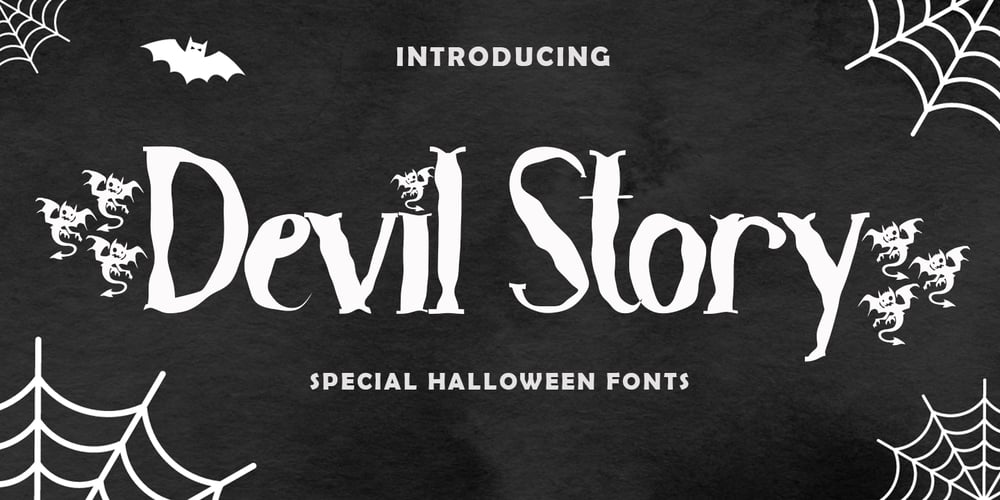
Devil Story Font Family was designed by Isroni Yoga Prasetya and published by Yoga Letter. Devil Story contains 1 styles and family package options. “Devil Story” is a halloween themed font, decorated with “devil” letters. This font is perfect for Halloween party celebrations, party invitations, posters, prints, stickers, and more. This font is equipped with uppercase letters, lowercase letters, uppercase decorations, lowercase decorations, numerals, punctuations, and also multilingual support.